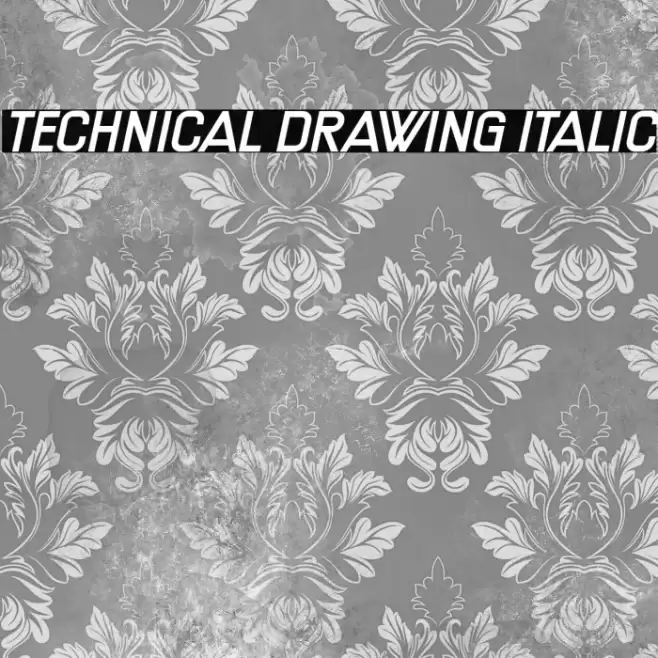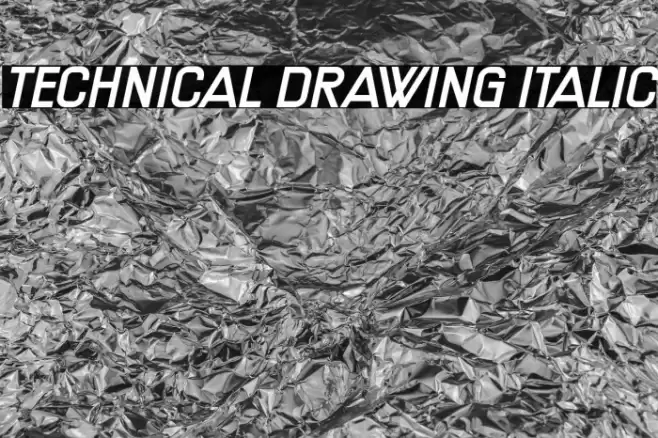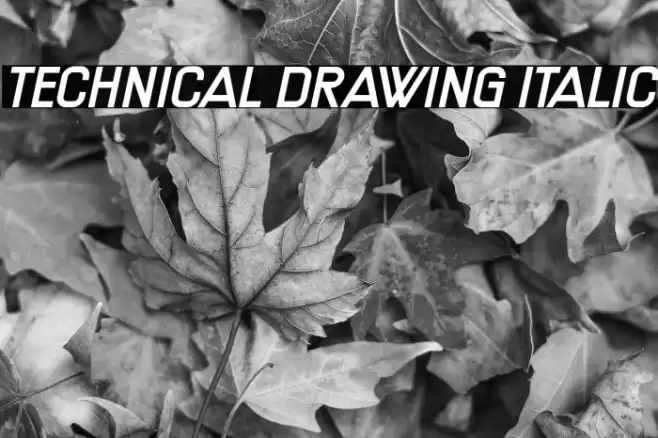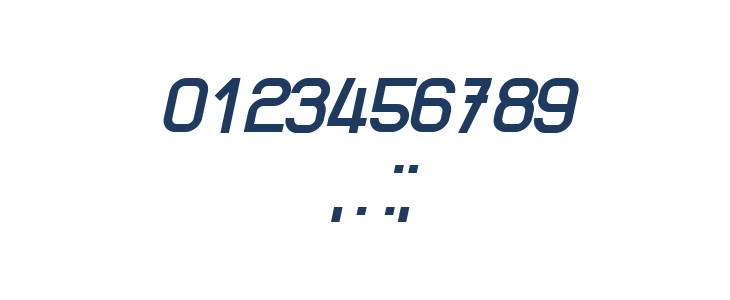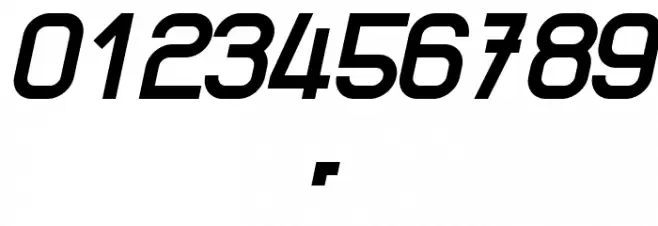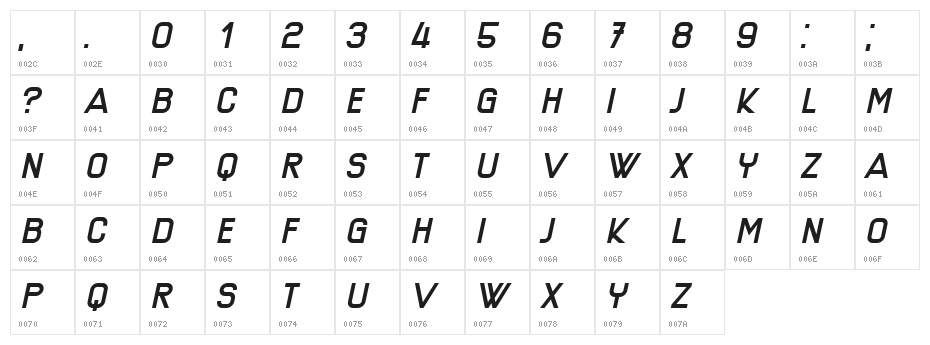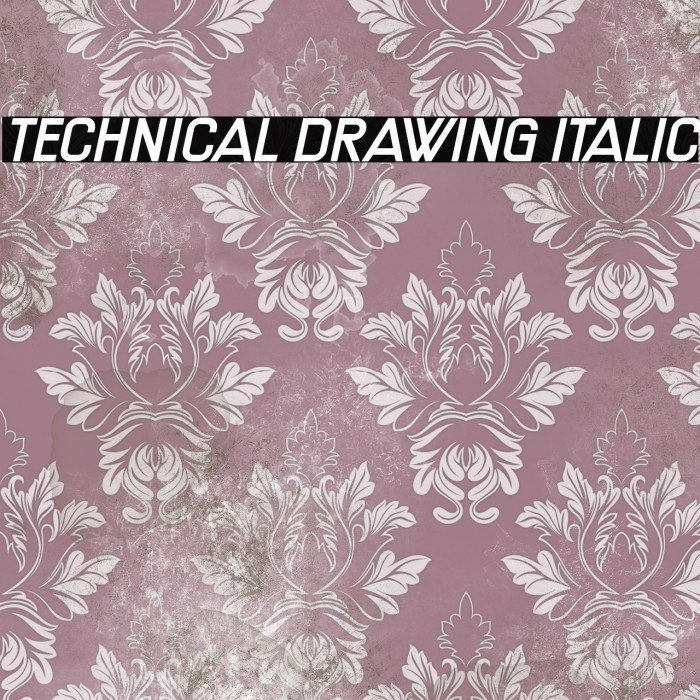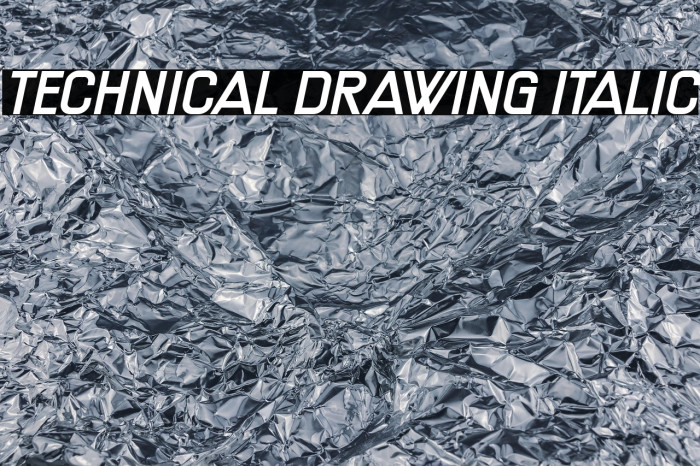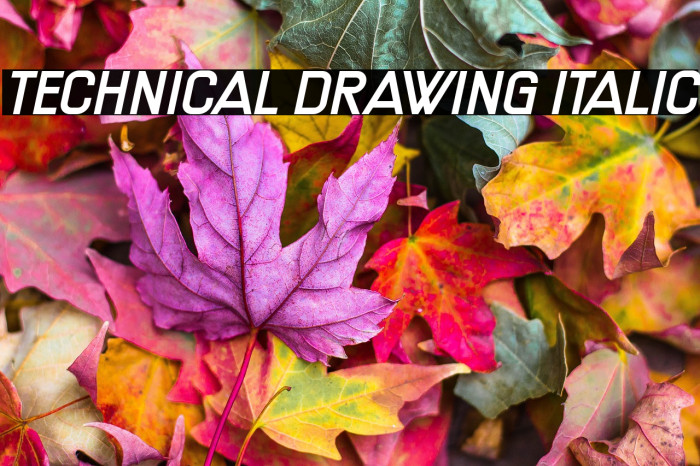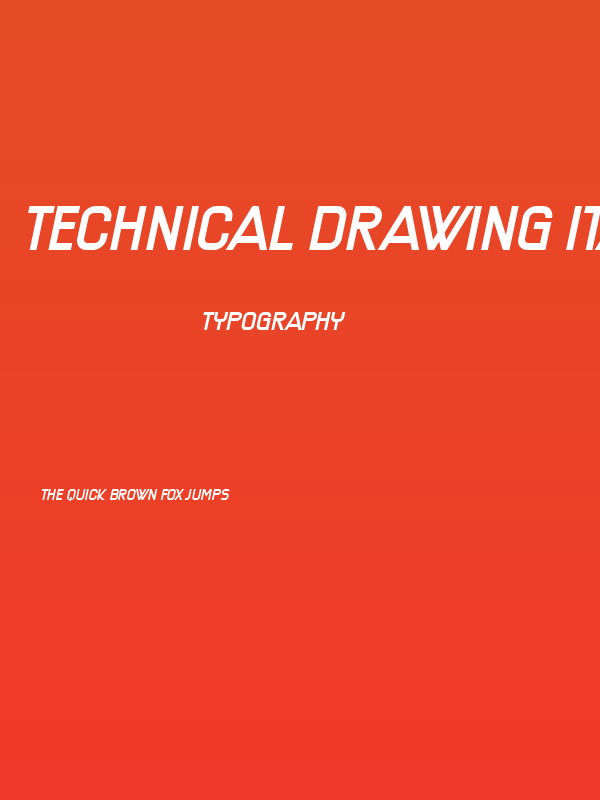
Technical Drawing Italic Font
Technical Drawing Italic Description
This font features a sleek, italicized design that embodies a technical and modern aesthetic. The characters are slightly slanted, giving a sense of motion and dynamism. The strokes are consistent and bold, with a uniform thickness that ensures readability. The overall look is clean and precise, making it suitable for technical documents or designs that require a contemporary edge. The numerals and special characters maintain the same stylistic approach, ensuring cohesion across all elements.
A modern, italicized font with a technical and sleek design from Uncategorized fonts.
- Proposed Projects: Ideal for technical manuals, engineering documents, modern branding, and digital interfaces.
- Use Case: Headlines, Technical documents, Branding